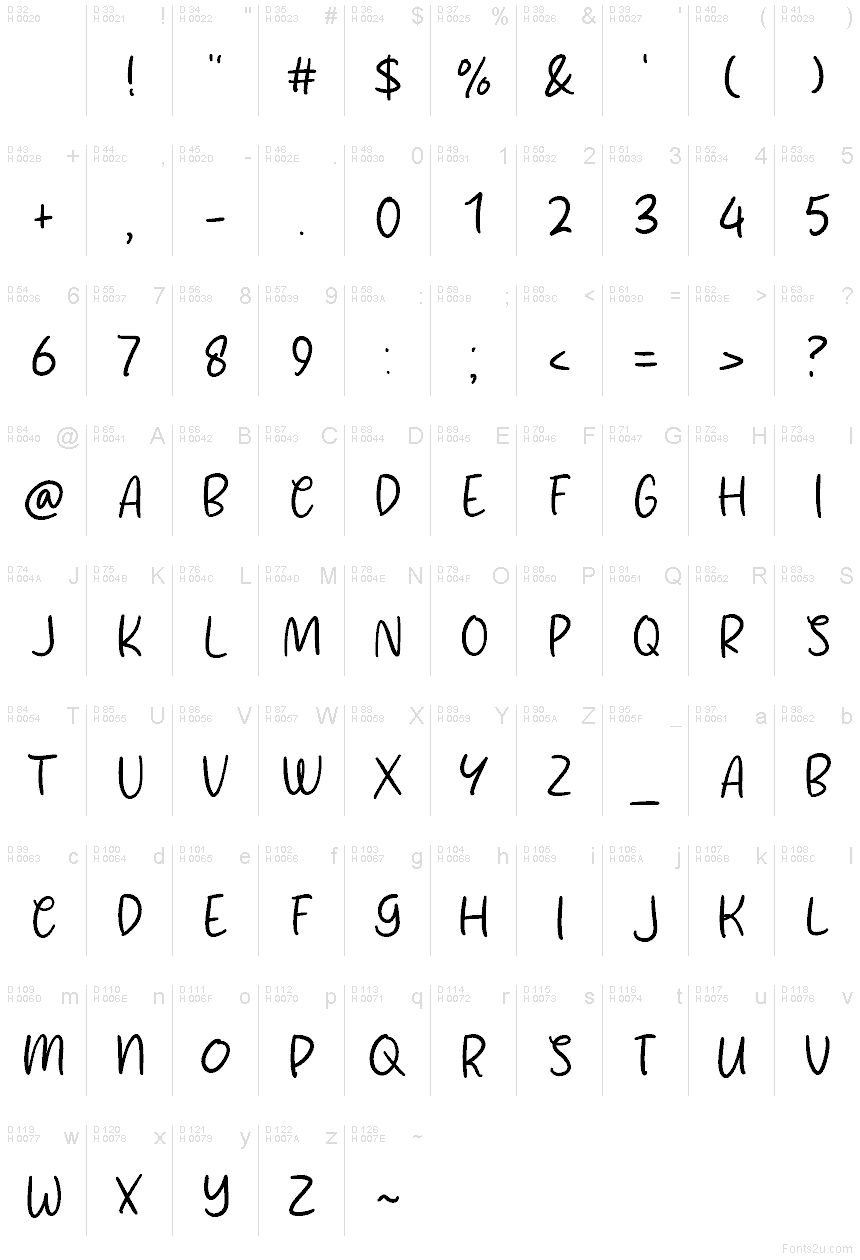
Sweety Bakery
Sweety Bakery font by MJType is a free handwritten font with the easy warmth of a marker pen on a café chalkboard. The rounded strokes, tall letters, and loose, bouncy rhythm feel like they were written by a friendly barista, giving menus and labels a cozy, homemade vibe. There’s a gentle playfulness in the curves that keeps things legible while still feeling sugary and light.
Using Sweety Bakery, you can add a charming, human touch to bakery branding, coffee shop menus, product packaging, farmers market tags, greeting cards, and social media graphics. This free font shines when used large for headlines and signage, then paired with a clean sans serif for smaller details and prices.